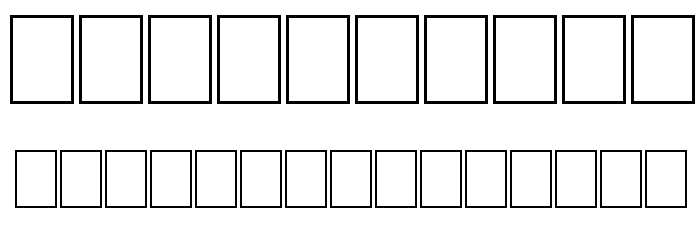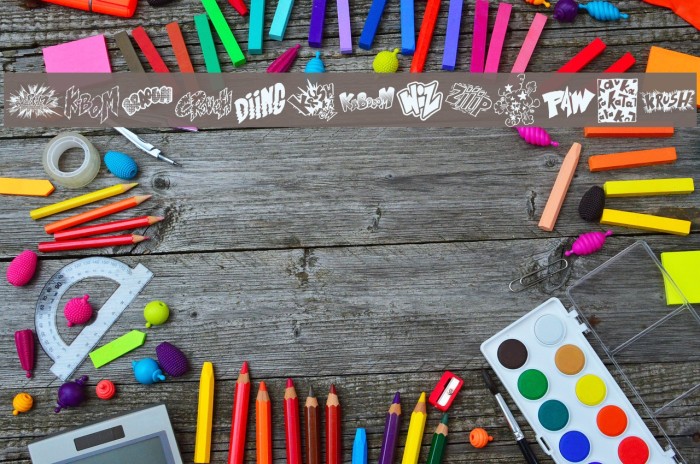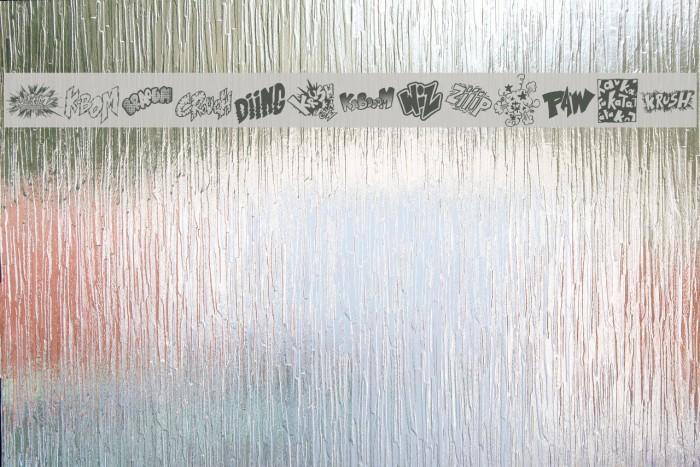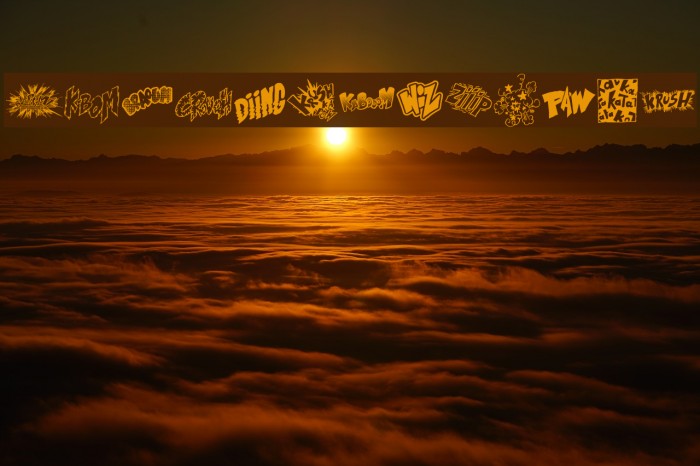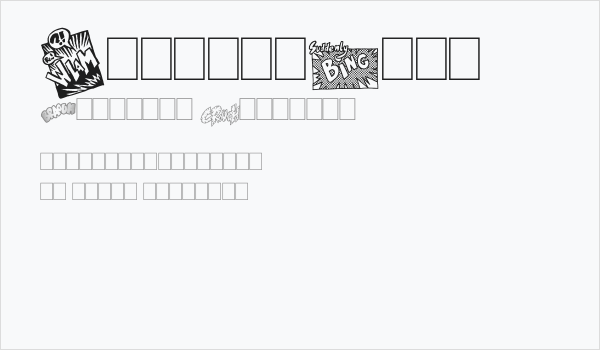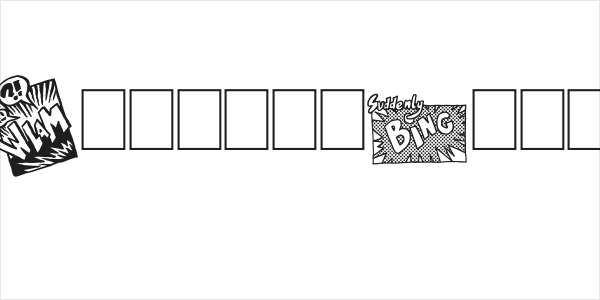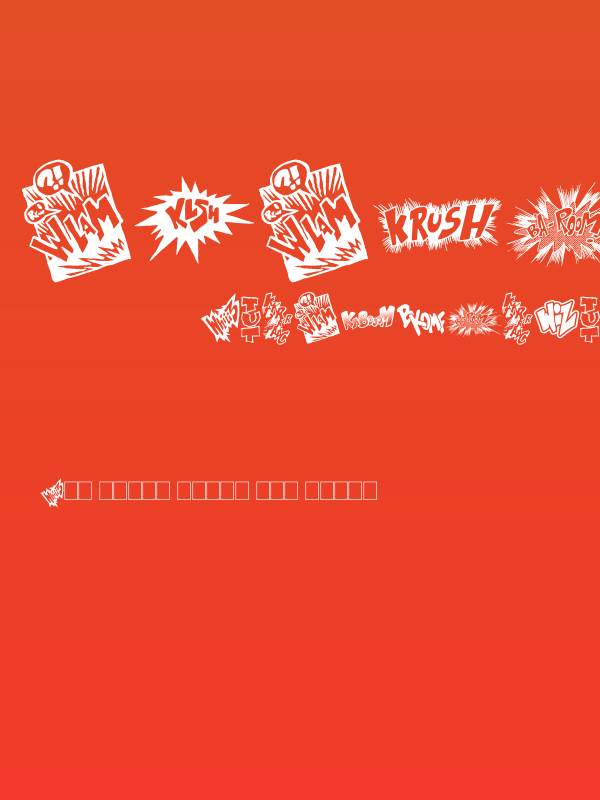
OnomatoVlam Font
OnomatoVlam Description
This font is a dynamic and energetic display typeface, characterized by its bold and exaggerated comic book style. Each character is uniquely designed to mimic the explosive and impactful nature of sound effects often seen in graphic novels and comic strips. The letters are highly stylized, with sharp angles, dramatic curves, and varying stroke widths that create a sense of movement and excitement. The font captures the essence of action and adventure, making it ideal for projects that require a playful and attention-grabbing aesthetic. Its unique design elements make it stand out, ensuring that any text set in this font will be both memorable and visually striking.
| Proposed Projects | Ideal for comic books, graphic novels, posters, video game graphics, and any project requiring a playful, action-oriented design. |